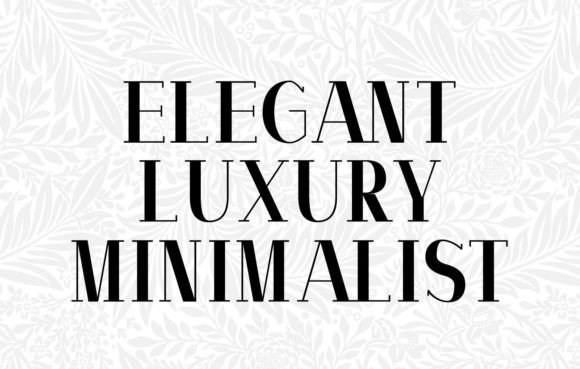
Elegantesco: An Elegant and Minimalist Slab Serif Typeface
Elegantesco, as the name suggests, is an elegant, minimalist, modern, and clean slab serif typeface designed with minimalism and elegance as the unique goal to achieve. It looks awesome when used in titles, luxury goods, packaging, perfume design, cosmetics, and more.
Key Features of Elegantesco
- Elegant Design: Offers a sophisticated and refined look suitable for luxury applications.
- Minimalist Style: Features clean lines and simple forms for a modern aesthetic.
- Slab Serif Structure: Incorporates distinctive serifs that add character while maintaining elegance.
- Versatile Application: Ideal for both print and digital media projects in high-end markets.
Ideal Uses for Elegantesco
Elegantesco’s unique characteristics make it particularly well-suited for:
- Luxury brand titles and logos
- High-end product packaging
- Perfume and cosmetics branding
- Fashion magazine headlines
- Upscale restaurant menus
- Luxury event invitations
- High-end website headers
When incorporating Elegantesco into your designs, consider these tips:
- Use for headlines or short blocks of text to showcase its elegant style.
- Experiment with different sizes to highlight the font’s minimalist features.
- Consider pairing with simpler sans-serif fonts for body text to create contrast.
- Utilize its clean design to create sophisticated and luxurious layouts.
Elegantesco is an excellent choice for designers looking to add an elegant and minimalist slab serif font to their typographic toolkit. Its ability to bring sophistication and modernity to various design projects makes it stand out in the world of luxury typography. Whether you’re working on high-end branding, creating packaging for premium products, or developing content that requires a touch of elegance, Elegantesco offers the perfect blend of style and refinement.
Furthermore, Elegantesco’s unique design allows it to shine in various contexts. From perfume labels to fashion magazine covers, this font can elevate your projects with its distinctive style. Its minimalist yet luxurious appearance works particularly well in designs that aim to convey exclusivity and high-end appeal.
In conclusion, Elegantesco is a font that truly captures the essence of modern elegance in typography. Its ability to work well in both minimalist projects and more elaborate luxury layouts showcases its versatility. For those looking to add a touch of sophisticated charm to their work, Elegantesco can enhance themed creations with its distinctive style. It’s the perfect choice for designers seeking to make a refined, stylish impact across a wide range of high-end creative projects.